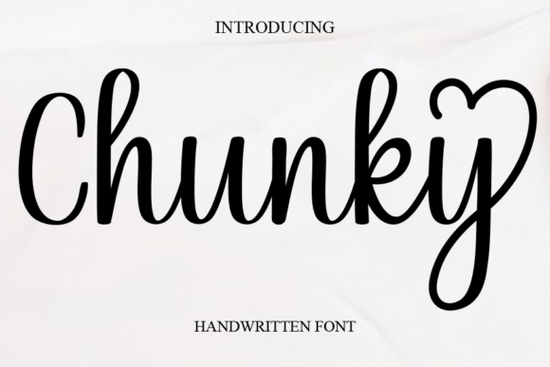
Finding the right typography for a boutique, wedding, or crafting project often comes down to balancing elegance with a casual feel. The Chunky Font is a sweet, cursive handwritten typeface that brings exactly that balance to your creative work. It offers a gentle aesthetic that looks gorgeous across a variety of design ideas. By adding a joyful and romantic touch, it ensures your projects look fancy but remain approachable and relaxed.
What makes a handwritten cursive font work for wedding branding?
Weddings require stationery that feels deeply personal. A flowing script style works perfectly for invitations, seating charts, and welcome signs because it mimics traditional calligraphy without the high cost of hiring a hand-letterer. You can use this typeface for the couple's names on the main invitation and then switch to a clean sans-serif for the event details. If you are designing a bachelorette party itinerary and want something slightly more relaxed, you might also explore a handwritten option like the playful lettering found in this sweet script to mix up the vibe.
How can crafters use this typeface for print-on-demand?
Print-on-demand sellers know that typography can make or break a t-shirt, tote bag, or sticker design. Because this font has a gentle flow, it works beautifully on apparel and accessories. You can use it for short, uplifting quotes on coffee mugs or stylish text on a fashion lookbook cover. The curves are smooth enough to cut cleanly on a vinyl cutter, making it an excellent choice for crafters using Cricut or Silhouette machines. When designing products for a younger audience, you could pair it with something like a hand-drawn crayon style to create a fun, contrasting layout that appeals to kids and parents alike.
Which materials show off cursive typography best?
The texture of your printing material changes how the font looks. Smooth, matte cardstock highlights the delicate curves of the letters, making it ideal for premium greeting cards. On the other hand, printing on textured watercolor paper gives the design a rustic, handmade feel that is perfect for artisan markets.
Which projects need a casual but elegant touch?
Small businesses often struggle to find branding that looks professional but not overly corporate. Greeting card makers, boutique owners, and lifestyle bloggers can use this cursive style for logos and marketing promotions. It keeps the brand identity soft and inviting. It fits perfectly on Instagram graphics where you want to share a quote or announce a sale without looking like a rigid advertisement. If your brand leans a bit more into vintage aesthetics, taking a look at a classic retro lettering set might give you additional inspiration for secondary logos or background watermarks.
How do you pair this script with other typefaces?
Good design relies on contrast. Since this is a flowing, cursive font, it pairs best with clean, simple sans-serif fonts for body text. This ensures your message is easy to read while the script draws the eye to the most important words. Avoid pairing it with another highly decorative script, as the two will fight for attention. For a bolder statement, you can contrast it against a heavy, blocky typeface for a modern look. If you want to keep everything in the handwritten family, try mixing it with a modern casual typeface for subheadings to create visual hierarchy.
Where does this font fit into a designer's toolkit?
Every creative hobbyist needs a go-to typeface for quick, beautiful projects. Whether you are designing a digital planner, a menu for a local cafe, or a romantic anniversary card, having a reliable cursive font saves time. It is also fun to experiment with vibrant colors. You might draw inspiration from a bright and colorful font style when you want to add a pop of summer energy to your tropical-themed designs.
What should you check before starting your design?
- Check the license: Ensure you have the correct commercial license if you plan to sell physical products or logos.
- Test the readability: Type out your longest quote to make sure the cursive letters remain legible at smaller sizes.
- Adjust the kerning: Handwritten fonts sometimes need slight manual spacing adjustments in software like Illustrator or Canva to connect the letters perfectly.
- Choose contrasting colors: Use dark text on light backgrounds or vice versa to maintain the delicate details of the cursive strokes.
Taking a few minutes to set up your file correctly will ensure your final product looks polished and professional.